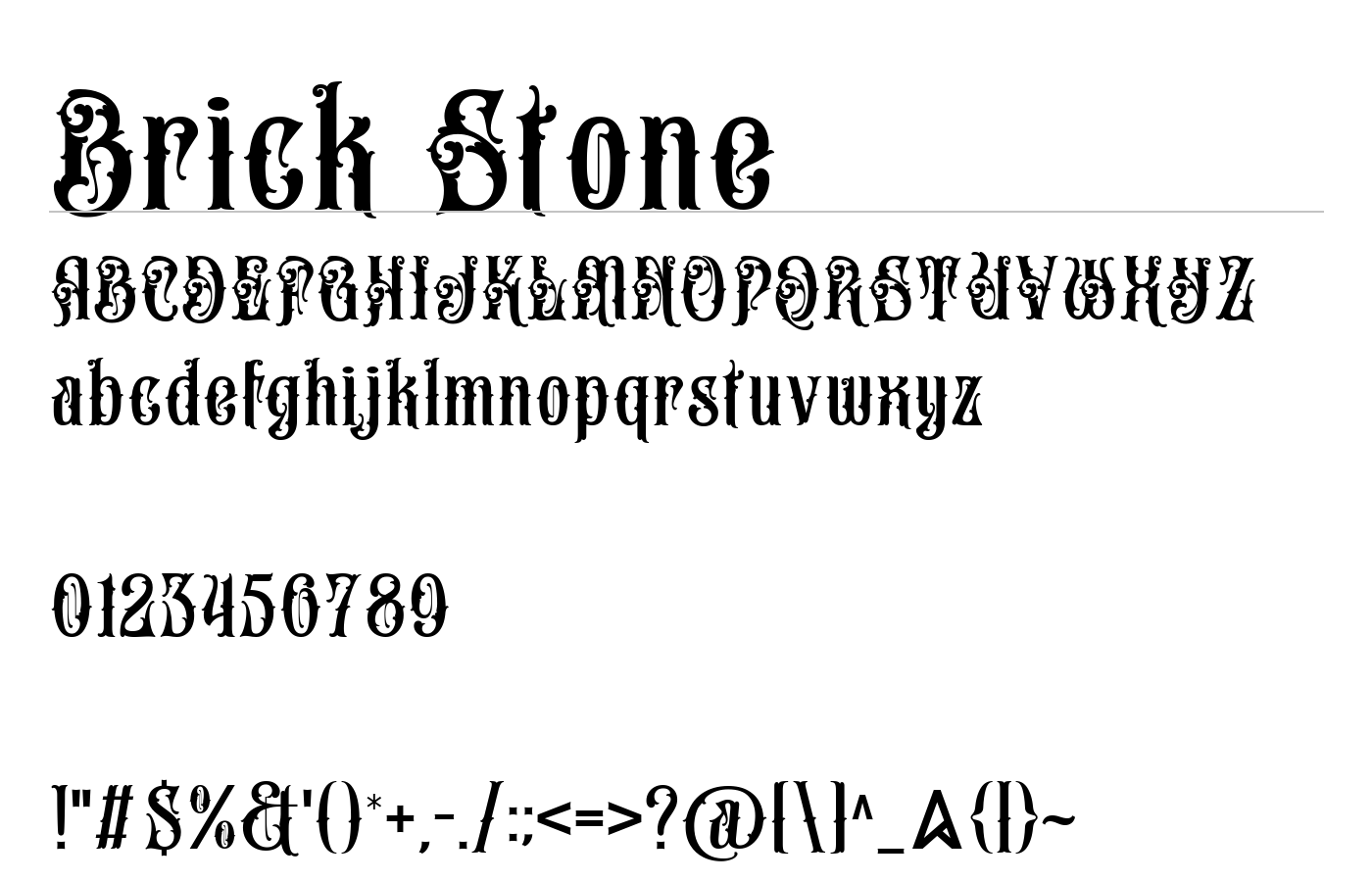
Brick Stone is a bold, decorative serif font that features intricate, ornamental details evoking a vintage, Gothic-inspired style. With its heavy weight, sharp edges, and elaborate flourishes, this font is ideal for creating eye-catching headlines, logos, or branding that needs a dramatic and old-world flair. It works best in contexts where a strong, unique personality is desired, especially in vintage-themed or artistic designs.
Brick Stone Font
About Brick Stone Font
| Font family | Brick Stone Font |
| Designer | Ny Indrayana |